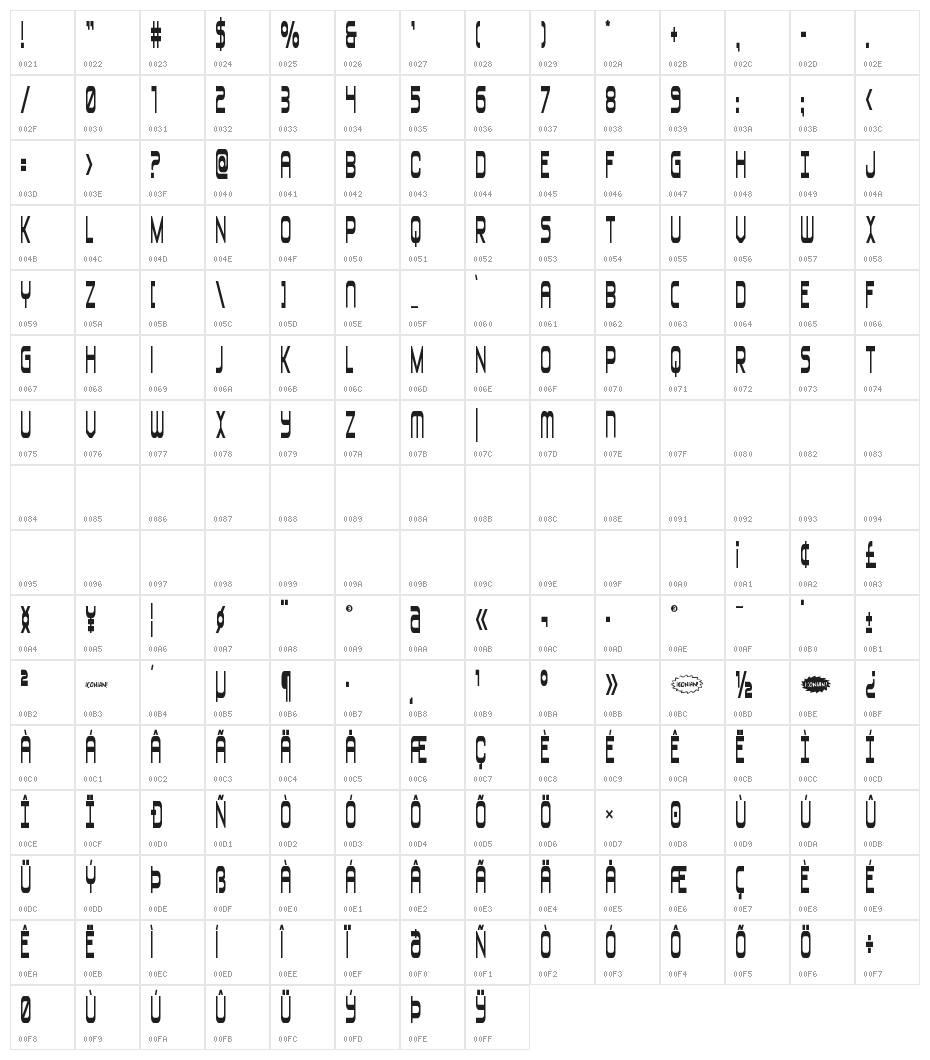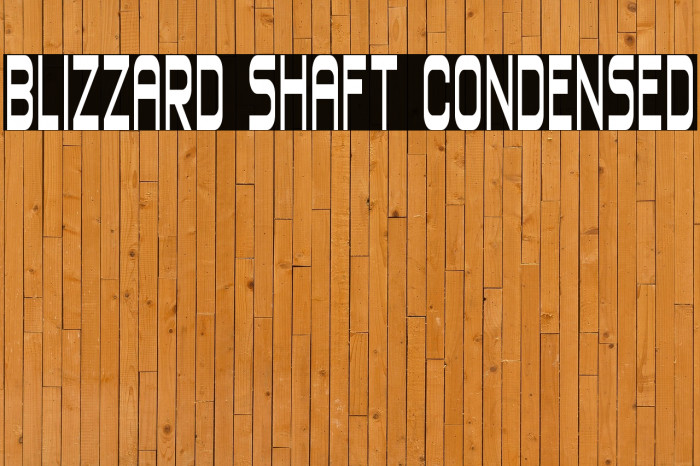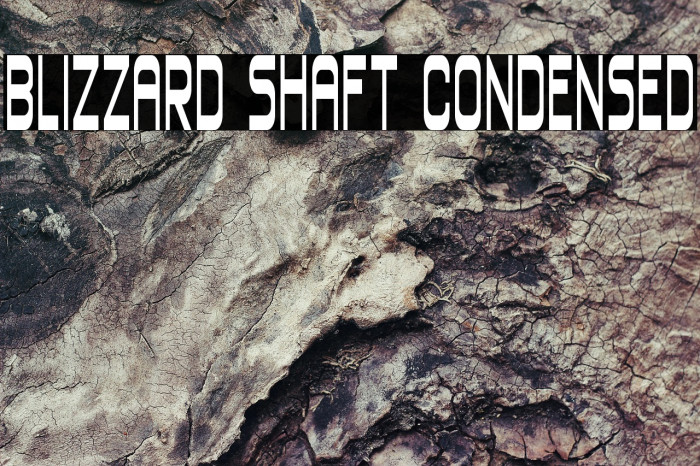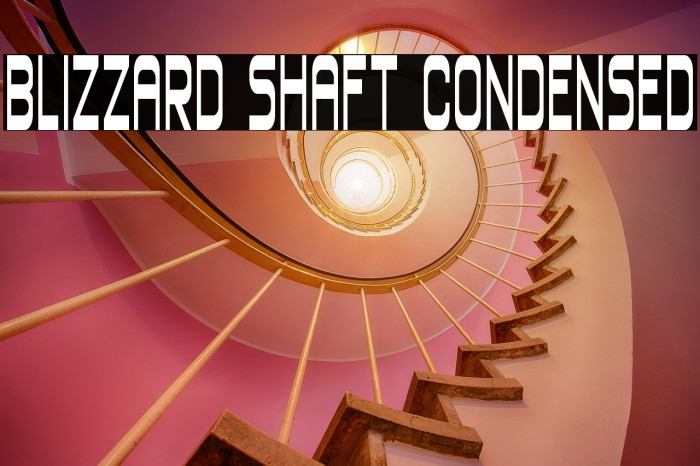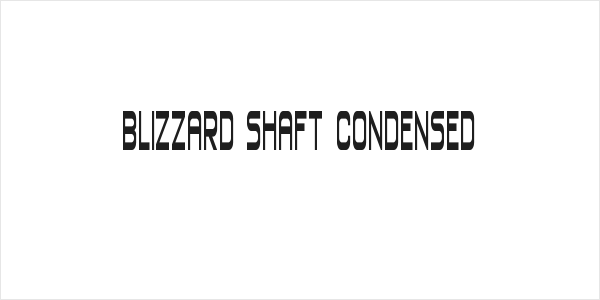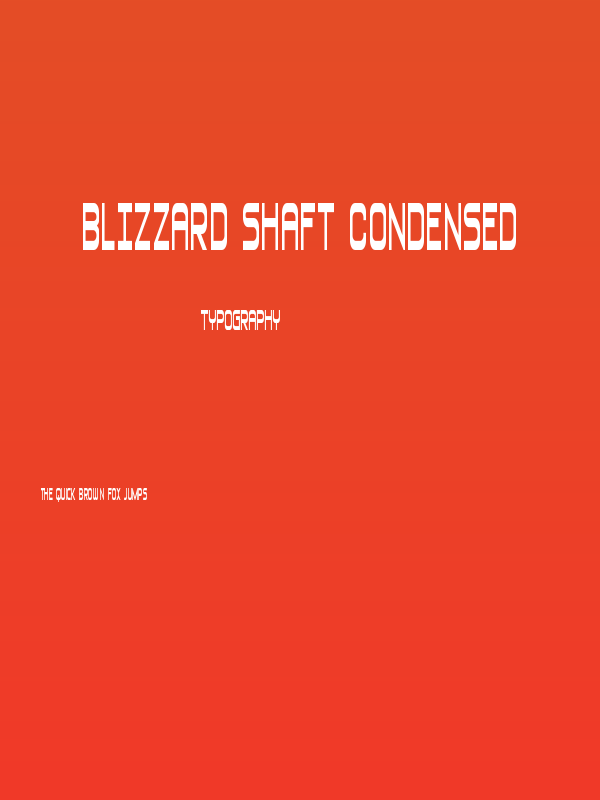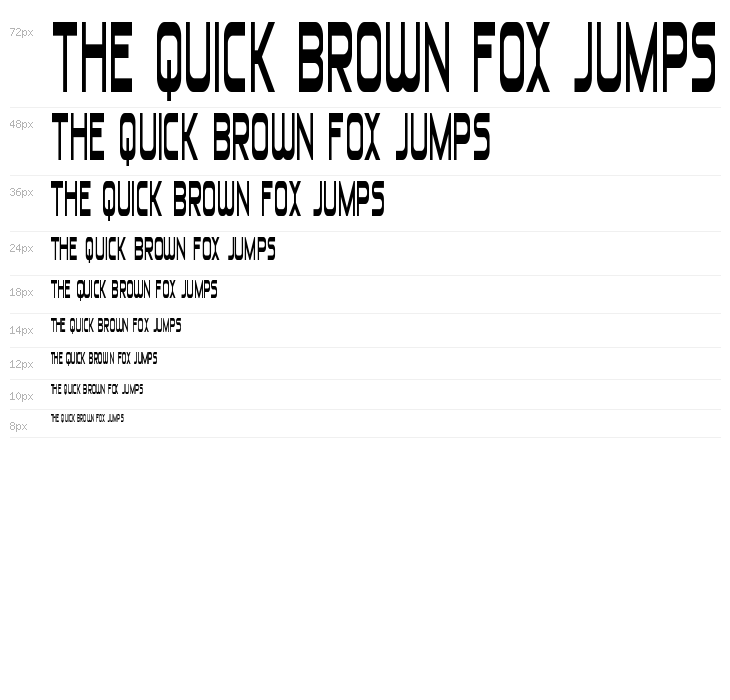
Blizzard Shaft Condensed Font
Blizzard Shaft Condensed Description
This font features a bold, geometric design with a condensed width, giving it a modern and impactful appearance. The characters are structured with sharp angles and straight lines, creating a sense of precision and strength. The uppercase letters are particularly striking, with a uniform height and consistent stroke width that enhances readability. The numerals and special characters maintain the same boldness and clarity, making them suitable for a variety of applications. Overall, this font exudes a contemporary and assertive style, ideal for making a strong visual statement.